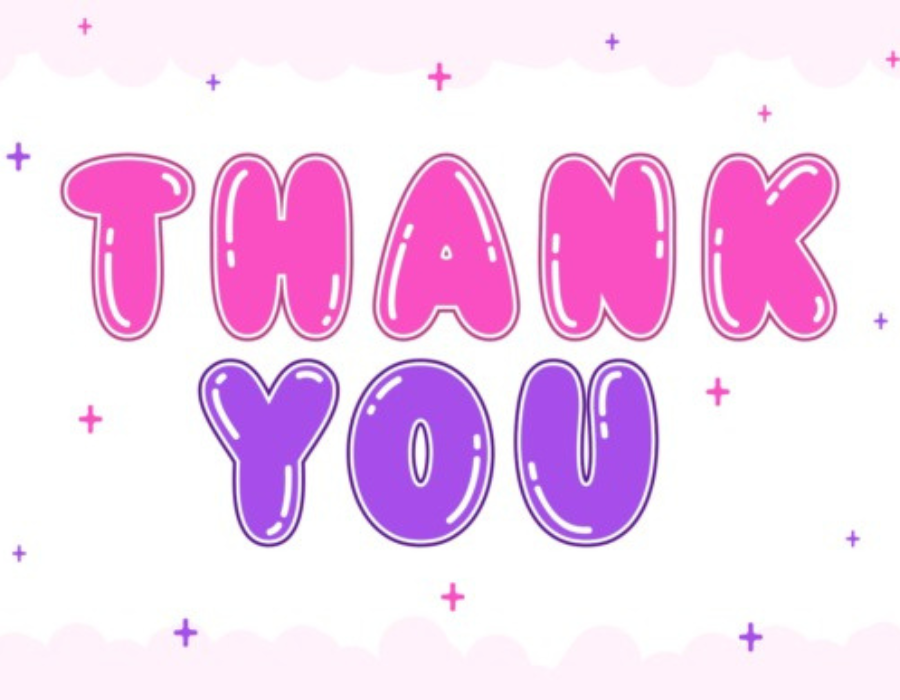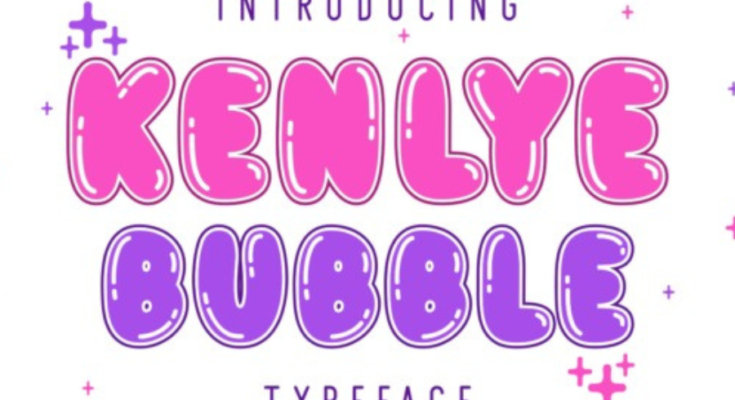
Kenlye Bubble Font: Playful Typography with Modern Charm
Typography plays a powerful role in shaping design. While sleek serifs and minimal sans-serifs dominate corporate branding, playful typefaces have their own unique charm—adding joy, fun, and lightheartedness to creative projects. Among the many display fonts available, Kenlye Bubble Font stands out as a cheerful, rounded typeface that captures attention while radiating positivity.
Kenlye Bubble Font is a rounded, bubbly typeface designed to evoke playfulness and creativity. Each letter is crafted with soft curves and inflated forms, resembling bubble-like shapes. The design has a friendly, casual, and inviting personality, making it ideal for projects that need to feel fun and approachable.
Its versatility allows it to shine in both digital and print mediums, whether used for logos, headlines, children’s content, or social media graphics.
Rounded Bubble Shapes – Each character feels soft, inflated, and friendly.
Playful Personality – Perfect for creative projects aimed at children or casual audiences.
Versatile Use – Works well for posters, packaging, invitations, and digital content.
Readable Design – Despite its playful nature, it maintains strong legibility.
Modern Appeal – Designed with clean lines for contemporary use.
Children’s Projects – Ideal for kids’ books, toys, games, or educational materials.
Branding & Packaging – Perfect for playful brands, snack packaging, or fun promotional campaigns.
Event Design – Great for birthday invitations, party banners, or themed celebrations.
Digital Content – Engaging for social media posts, YouTube thumbnails, or app graphics.
Merchandise – Eye-catching for t-shirts, mugs, stickers, and custom designs.
Fonts are more than shapes—they communicate emotion. Creates feelings of happiness, youthfulness, and excitement. Its soft edges invite audiences to connect with a brand or message in a warm, positive way. For designers aiming to add energy and playfulness, it’s an excellent choice.
The Kenlye Bubble Font is more than a typeface—it’s a design element that adds fun and personality wherever it is used. With its rounded forms and approachable style, it bridges the gap between professional typography and playful creativity. Whether for branding, children’s designs, or social media graphics, ensures every project feels lively, modern, and full of character.